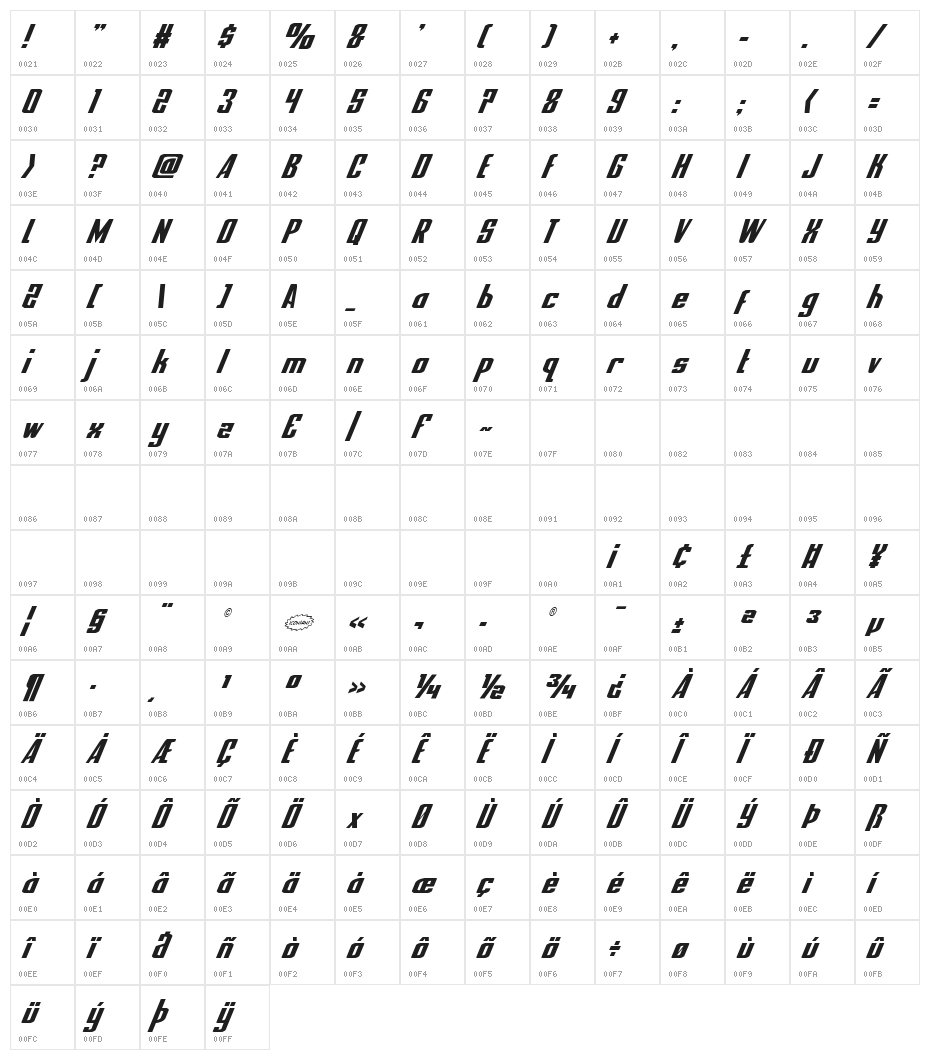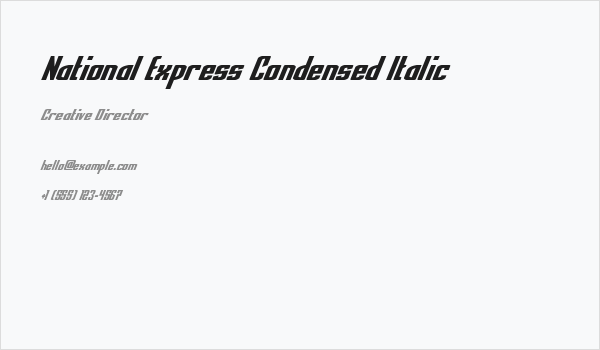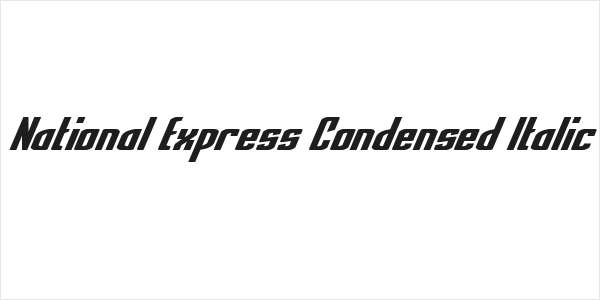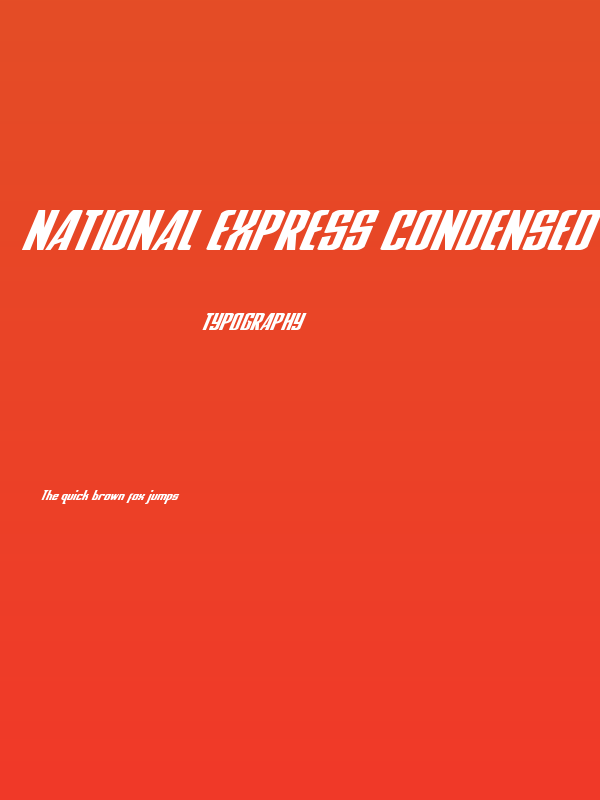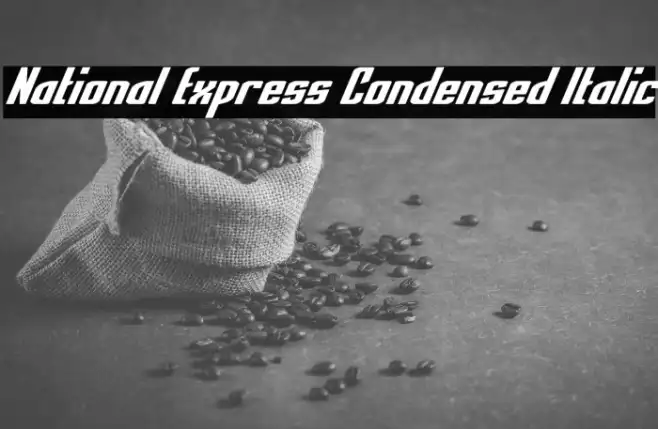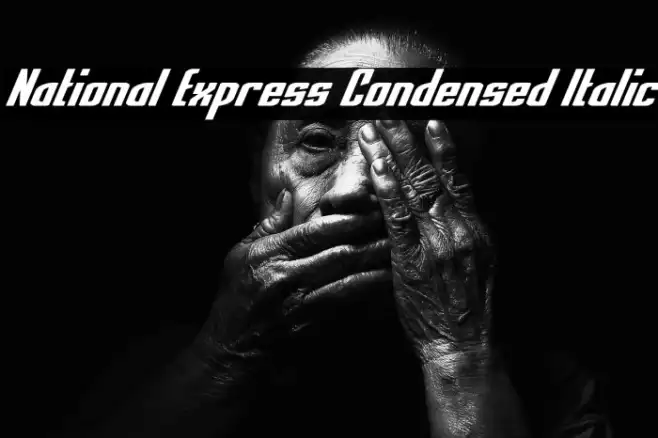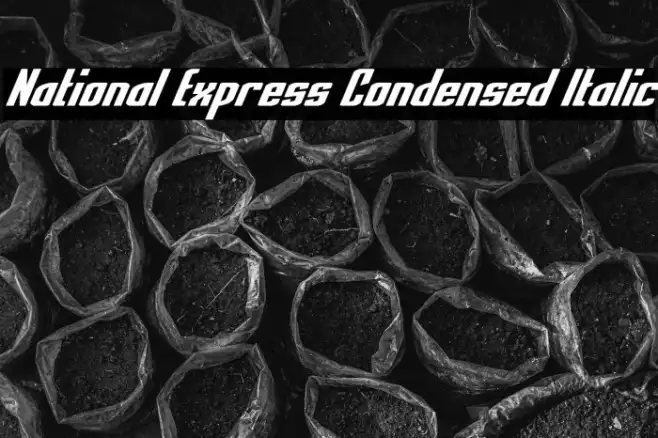
National Express Condensed Italic Font
National Express Condensed Italic Description
This font features a bold and dynamic style with a condensed and italicized form. The characters are sharply angled, giving a sense of speed and motion, which is enhanced by the italic slant. The uppercase letters are tall and commanding, while the lowercase letters maintain a consistent height, ensuring readability. The numbers are distinct and match the overall aesthetic, providing a cohesive look across all characters. The special characters are designed to complement the letters and numbers, maintaining the same bold and angular style. This font is ideal for creating impactful and energetic designs.